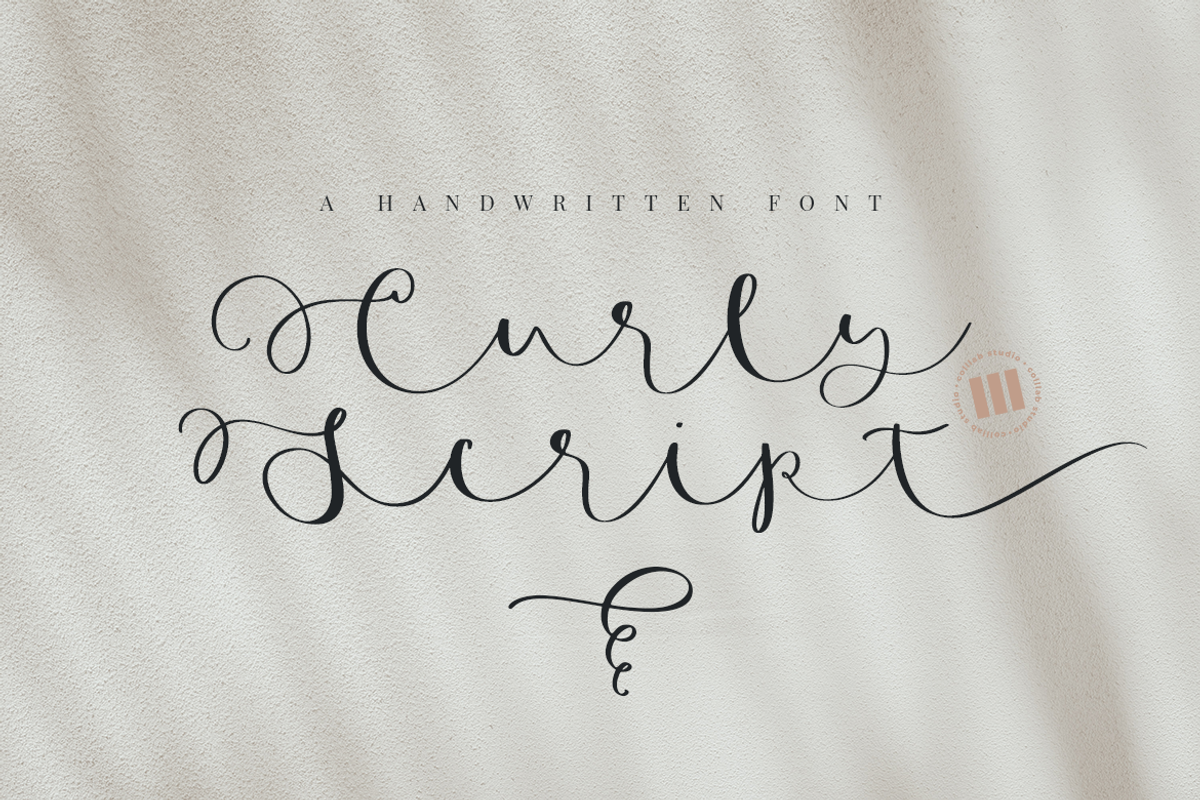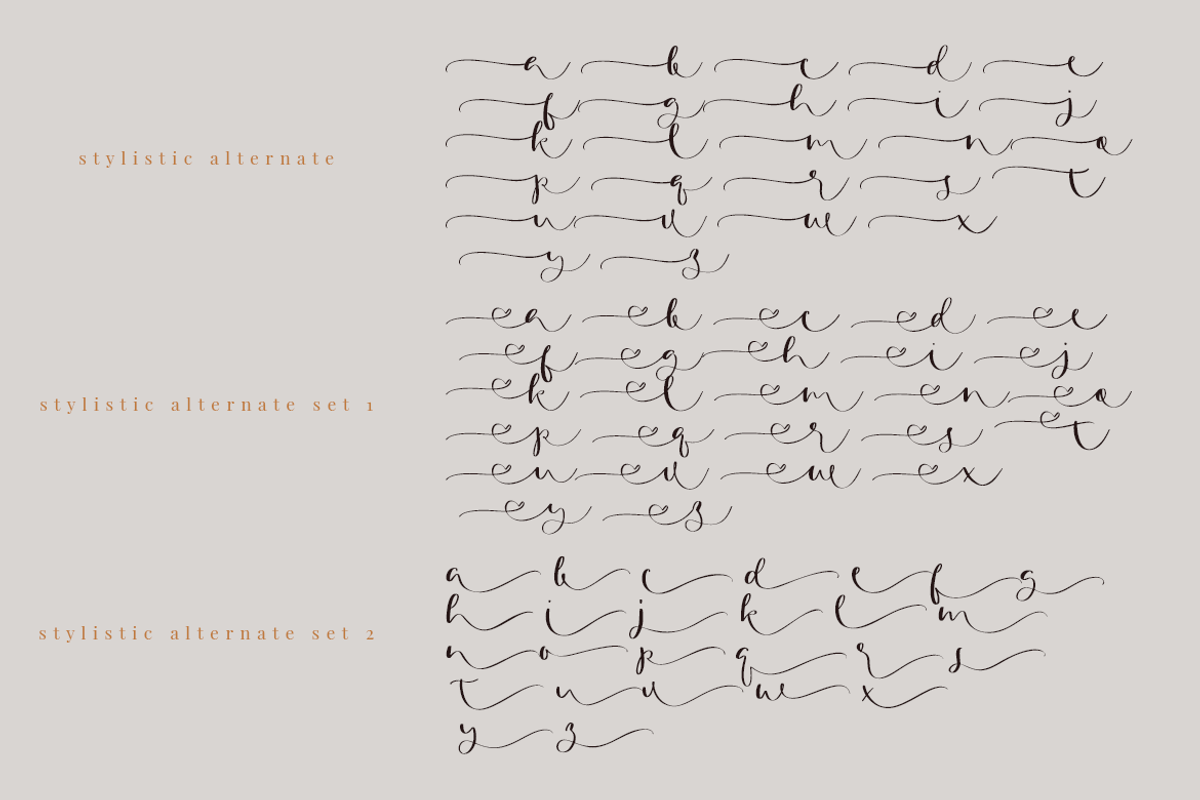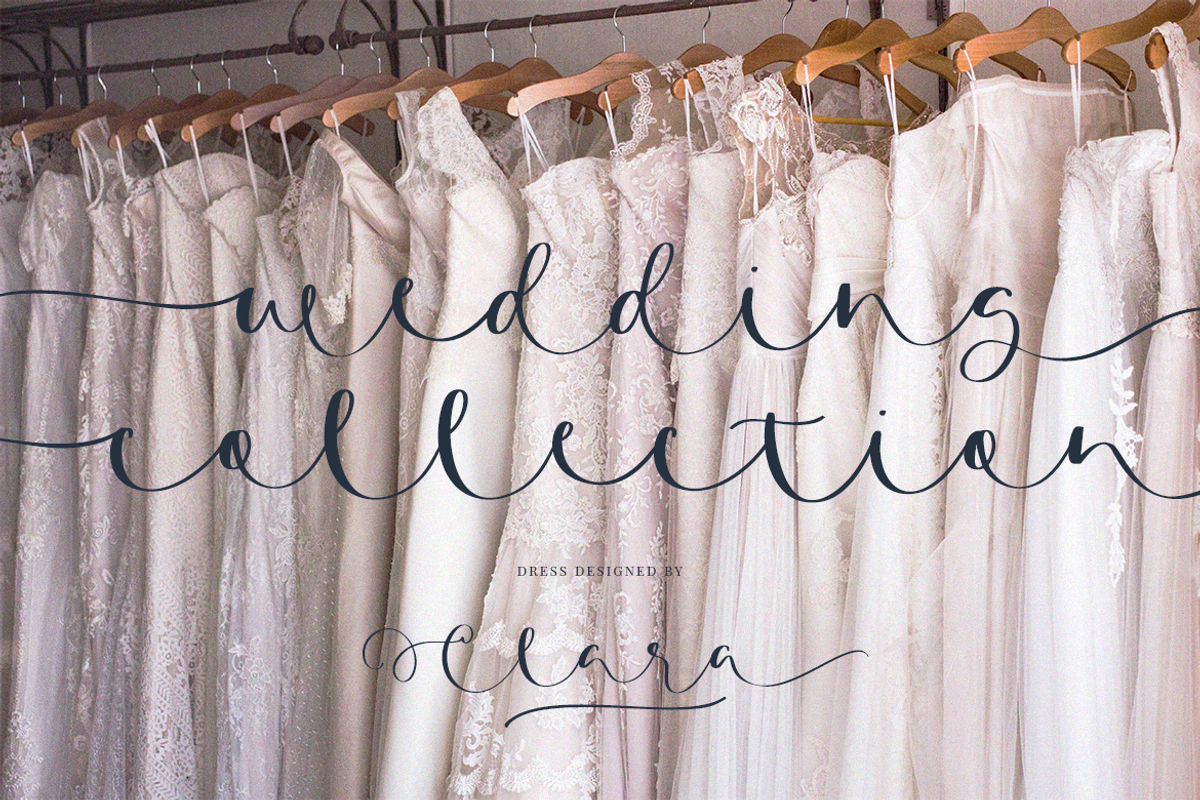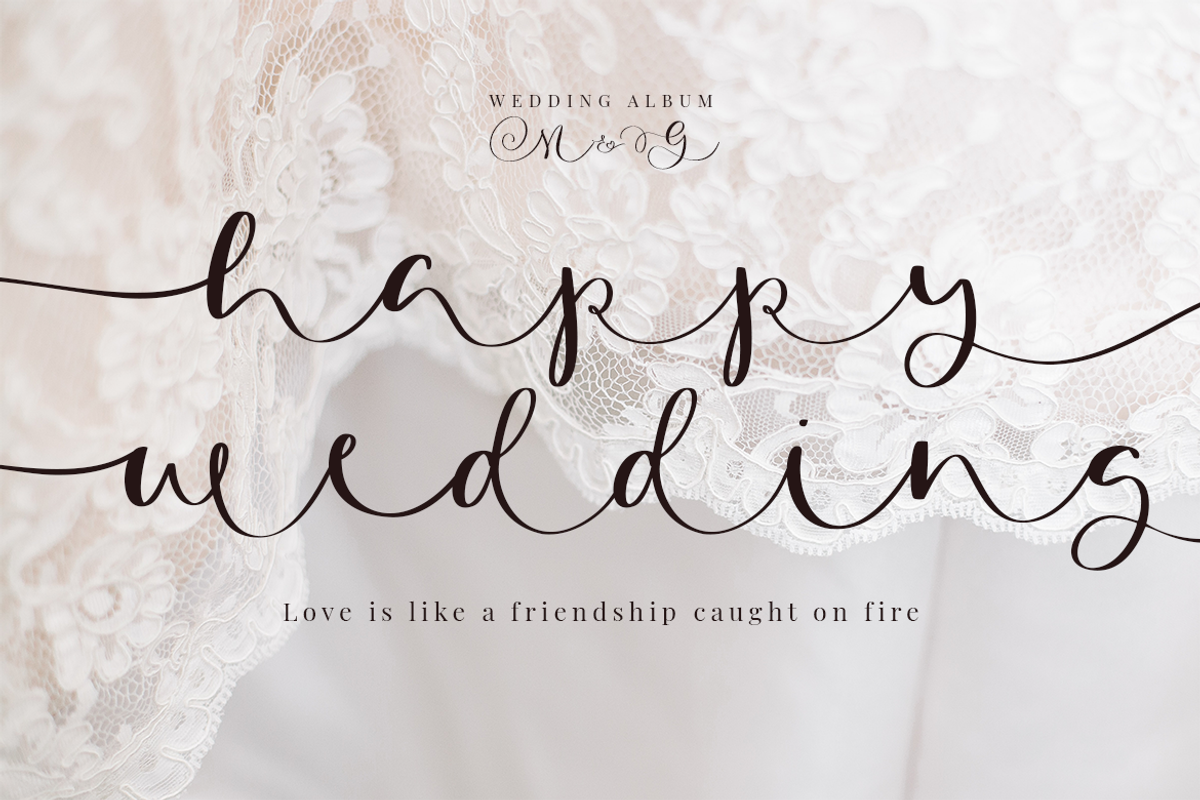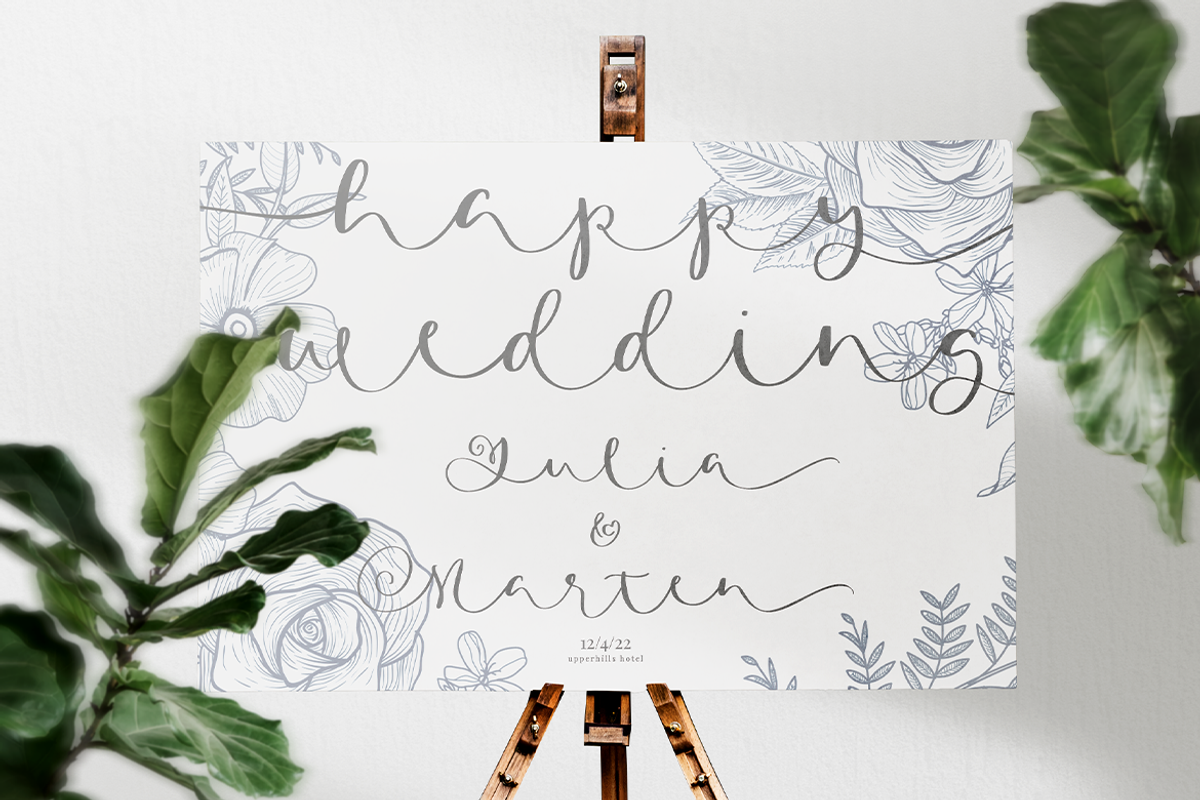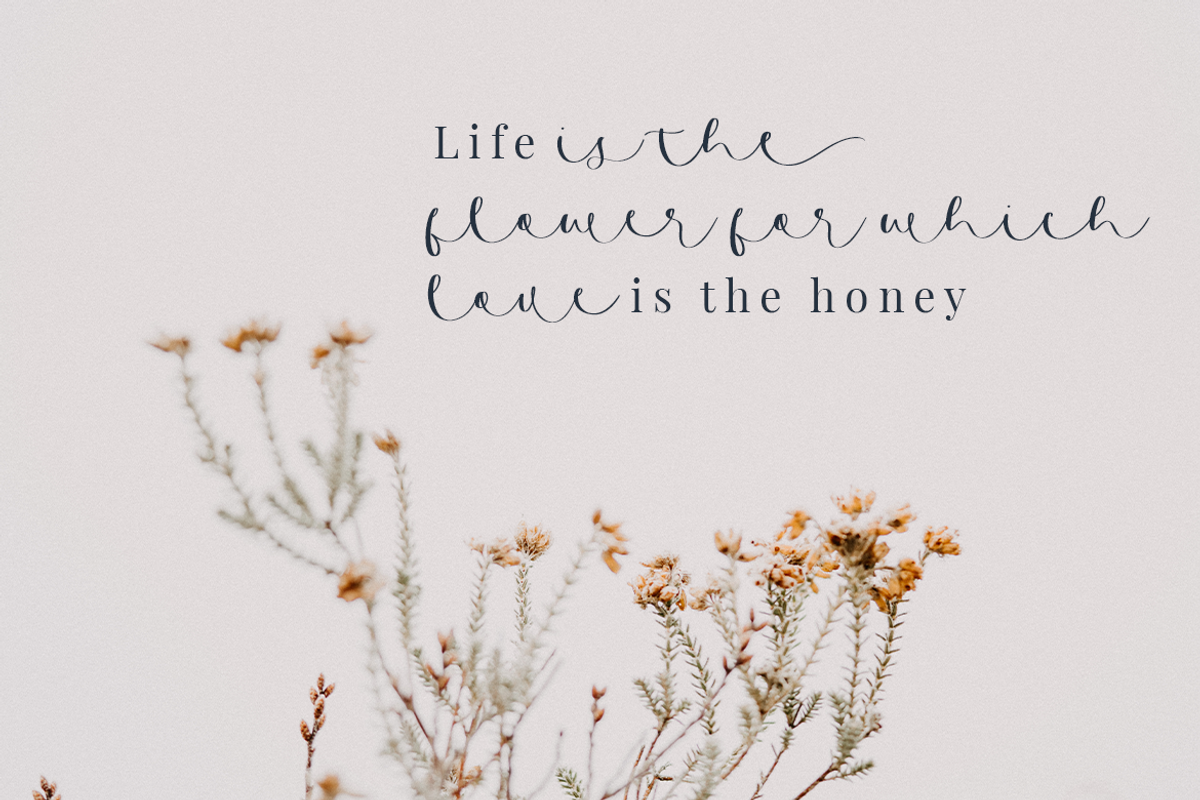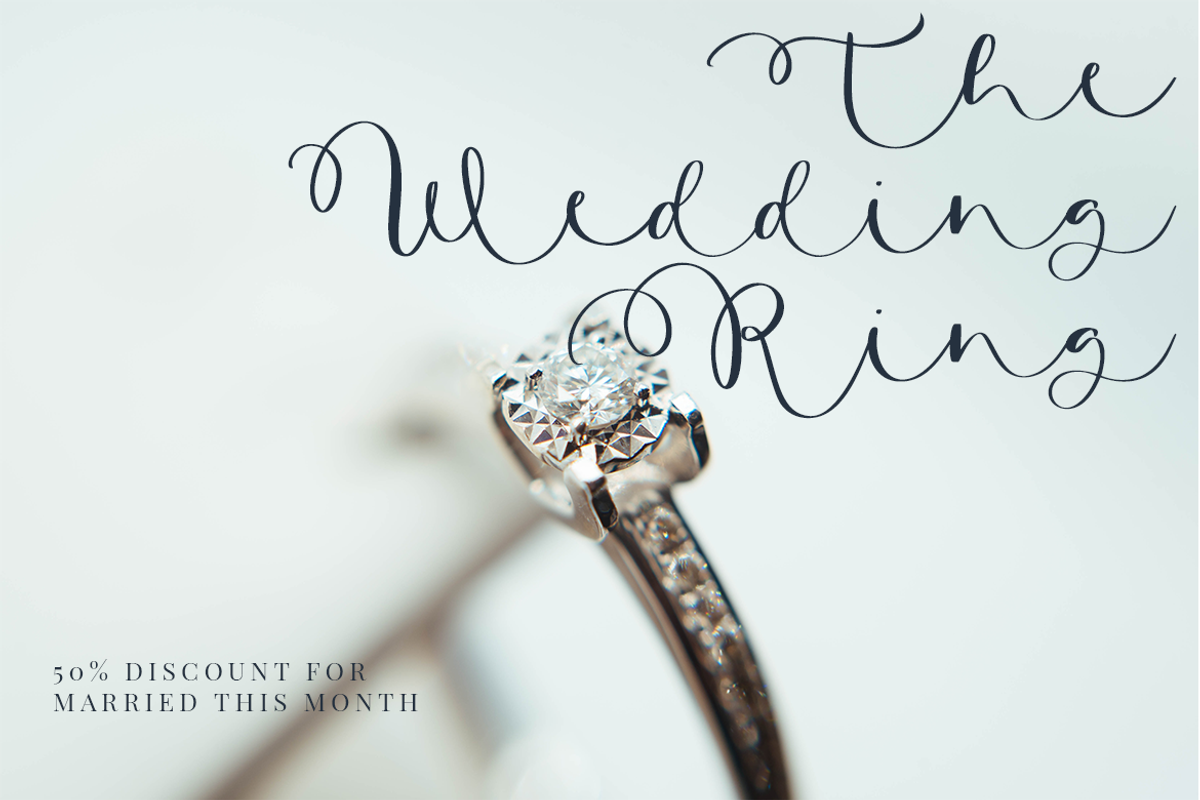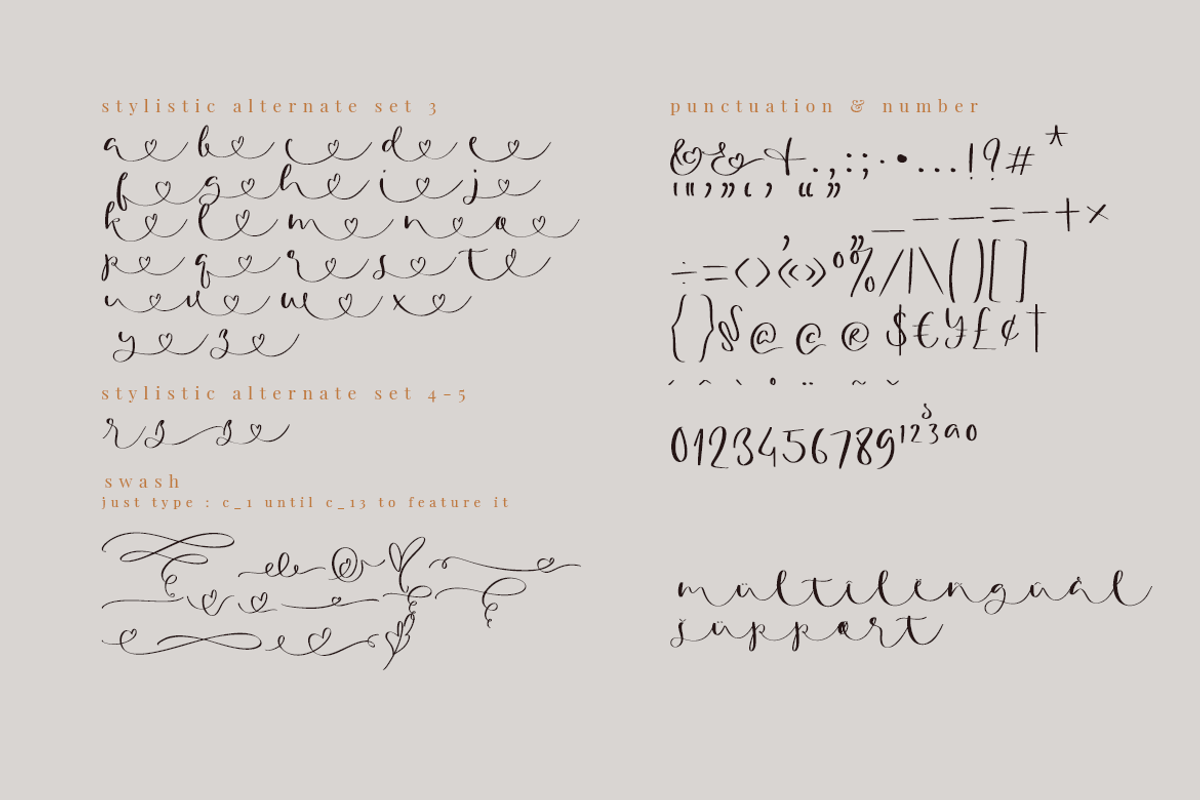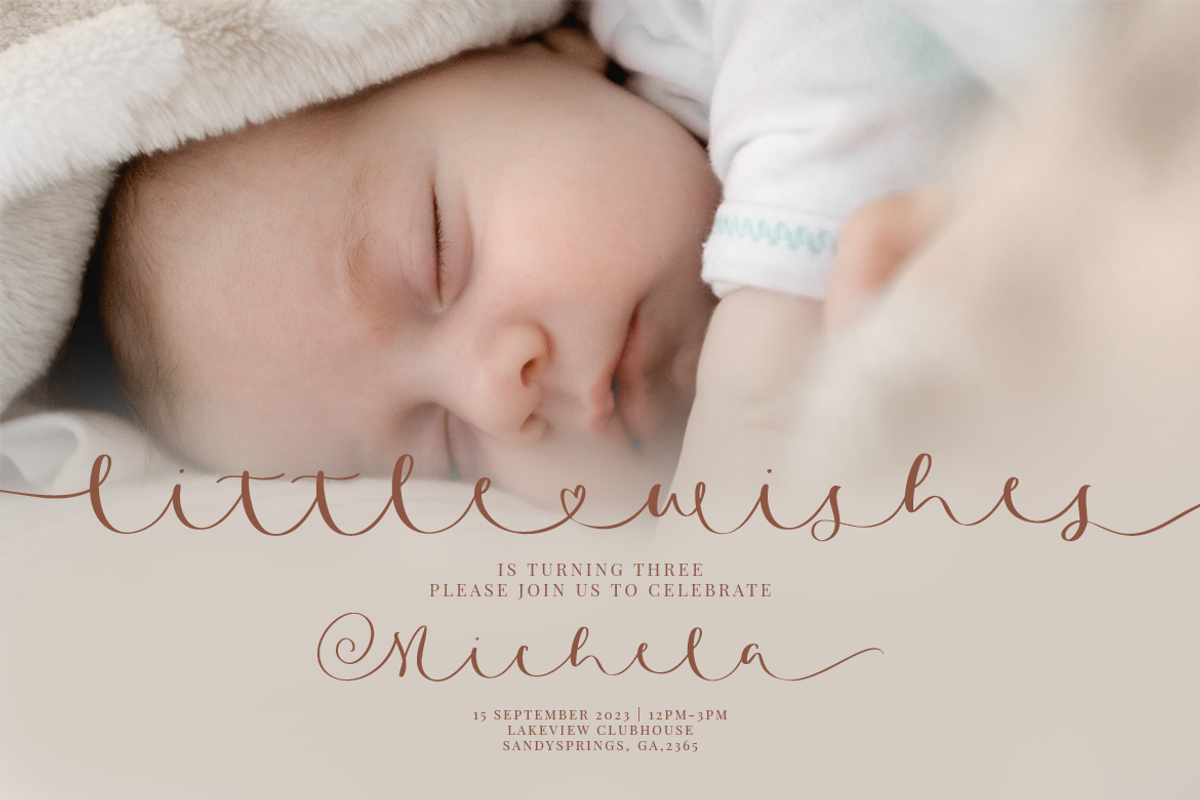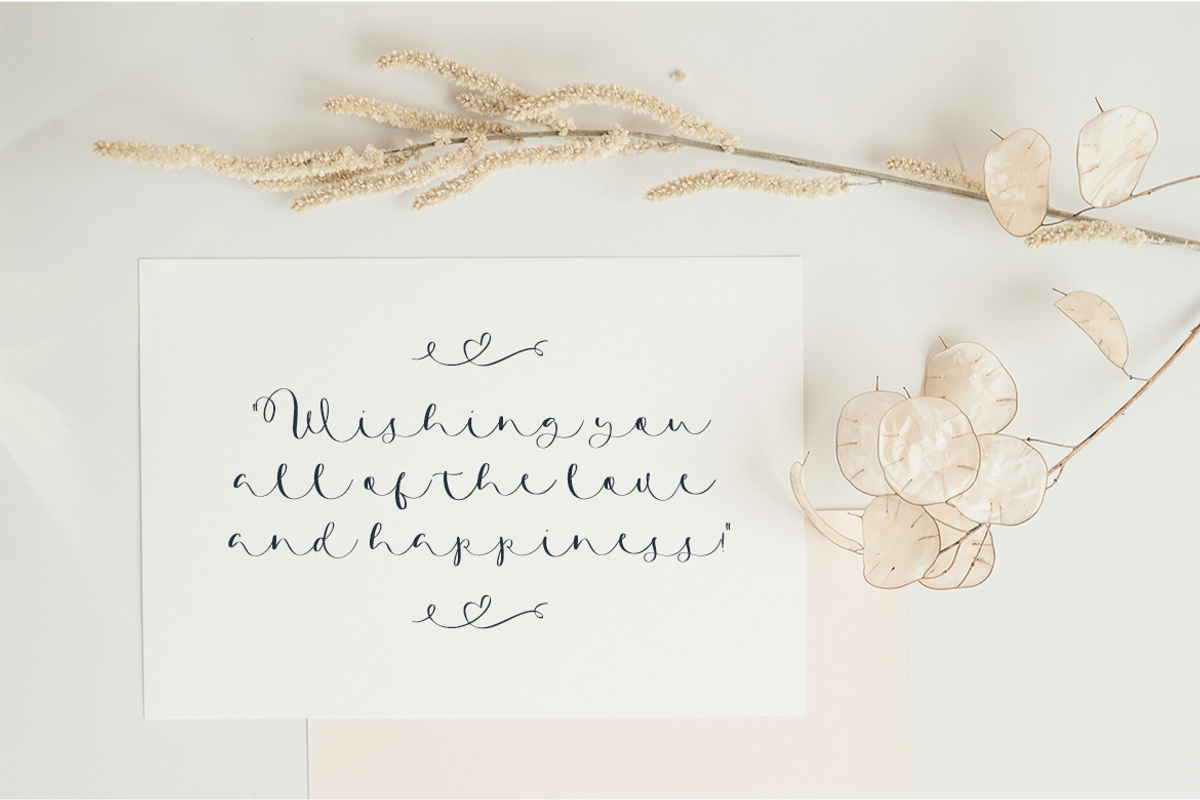
Curly Script | A Handwritten Font
Curly Script is a handwritten font that is full of charm, yet contains an elegance and sophistication. Featuring letterforms that have an organic and sweeping appearance, thanks to the large counters and accents, this structured script is perfect for those who want readability and elegance.
Curly script is perfect for personal invitations, greeting cards, places cards, and other stationery needs. Available starting this season from Creative Market.
- 320 Glyps,
- 4 Sets of Stylistic Alternates
- Multilanguage Support ( 64 Languages )